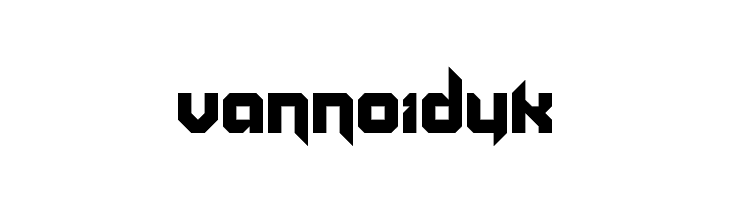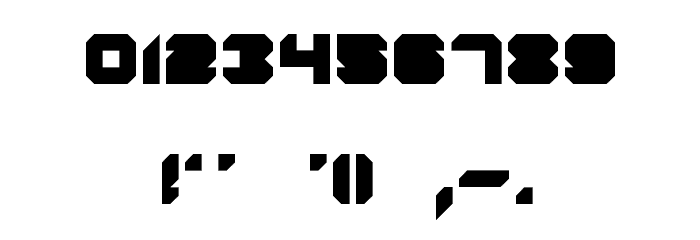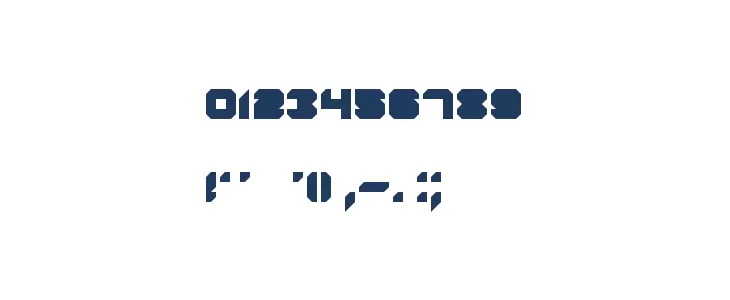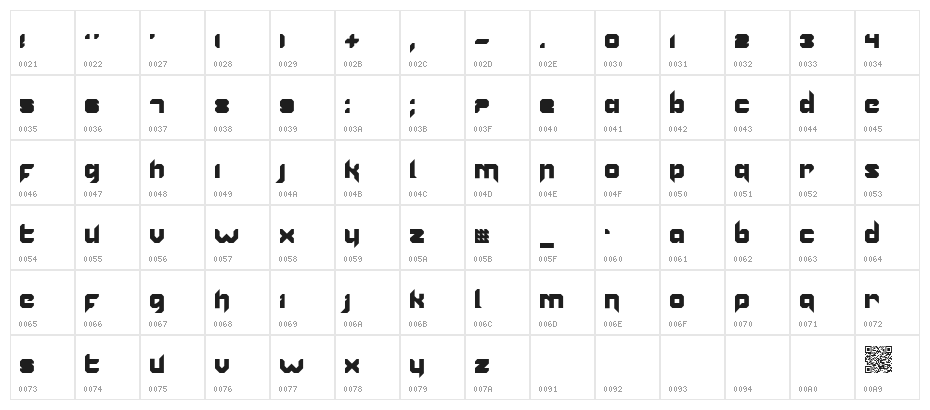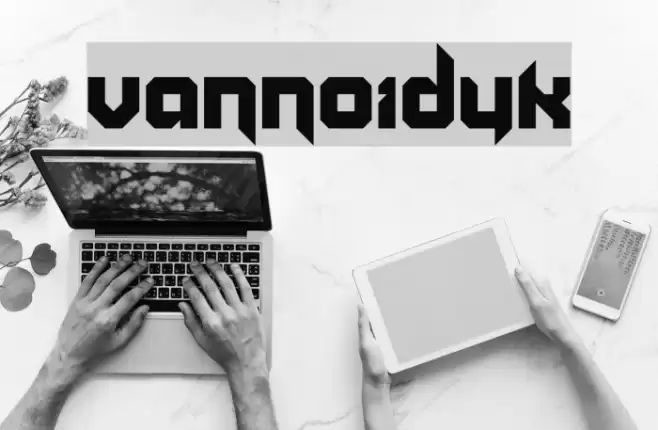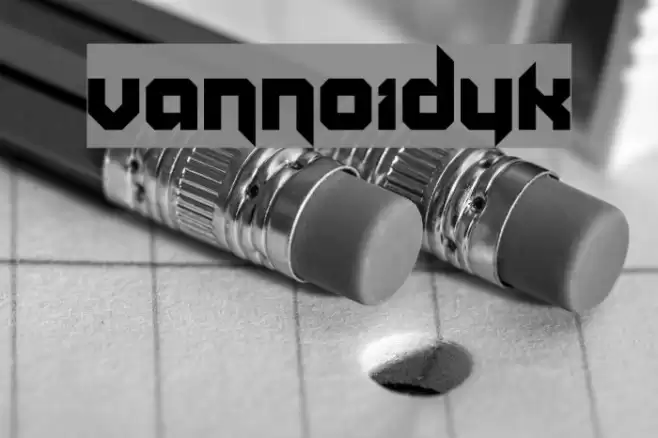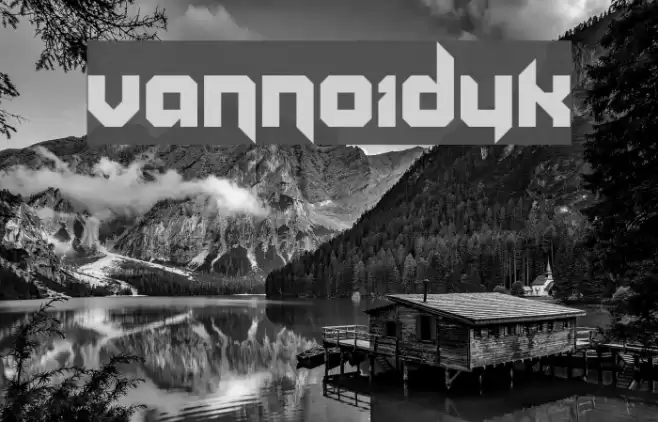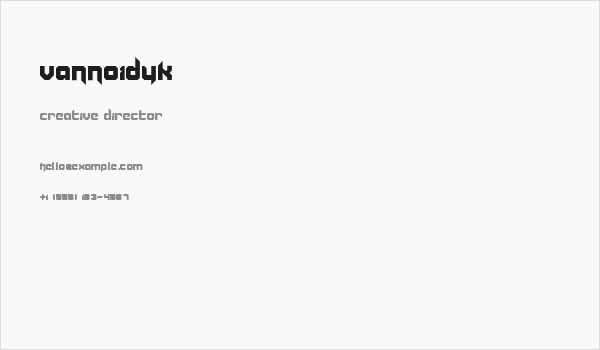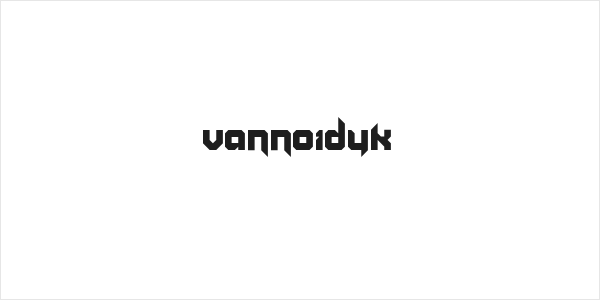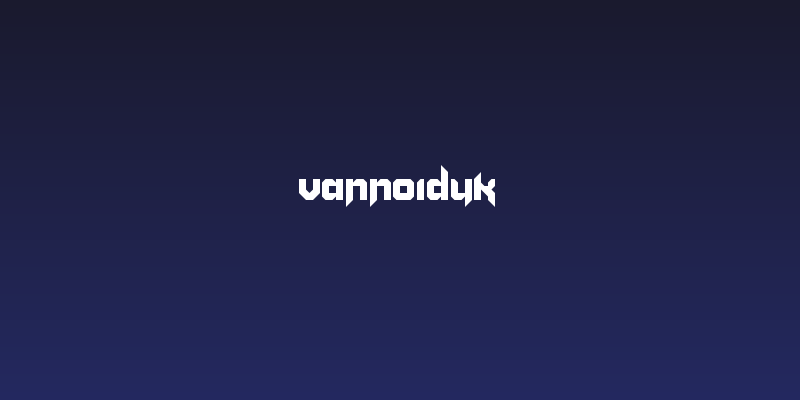
Vannoidyk Font
Vannoidyk Description
This font features a bold and geometric design with sharp angles and a futuristic aesthetic. The characters are constructed with a block-like structure, giving them a strong and impactful presence. The uppercase and lowercase letters maintain a consistent style, with angular cuts and a uniform thickness throughout. The numerals and special characters follow the same design principles, ensuring a cohesive look across all elements. This font is ideal for projects that require a modern and edgy appearance, making it suitable for technology-related branding, video game titles, or sci-fi themed designs.
| Use Case | Logos, Headlines |
| Proposed Projects | Ideal for technology branding, video game titles, and sci-fi themed designs. |